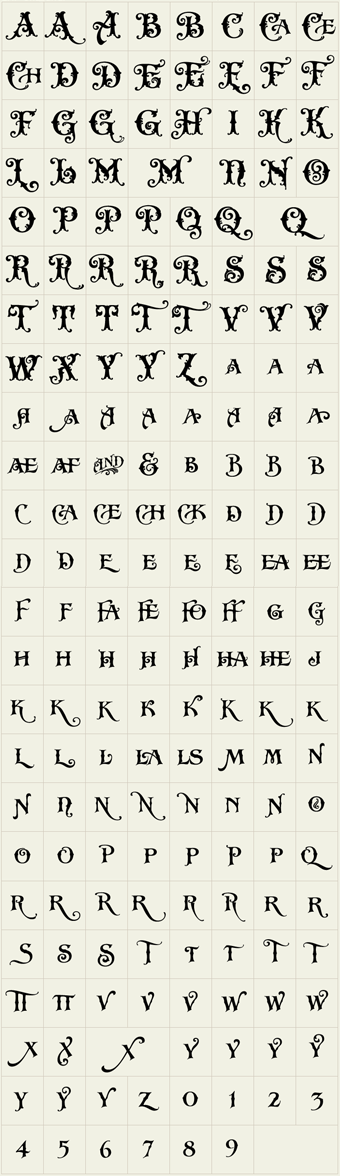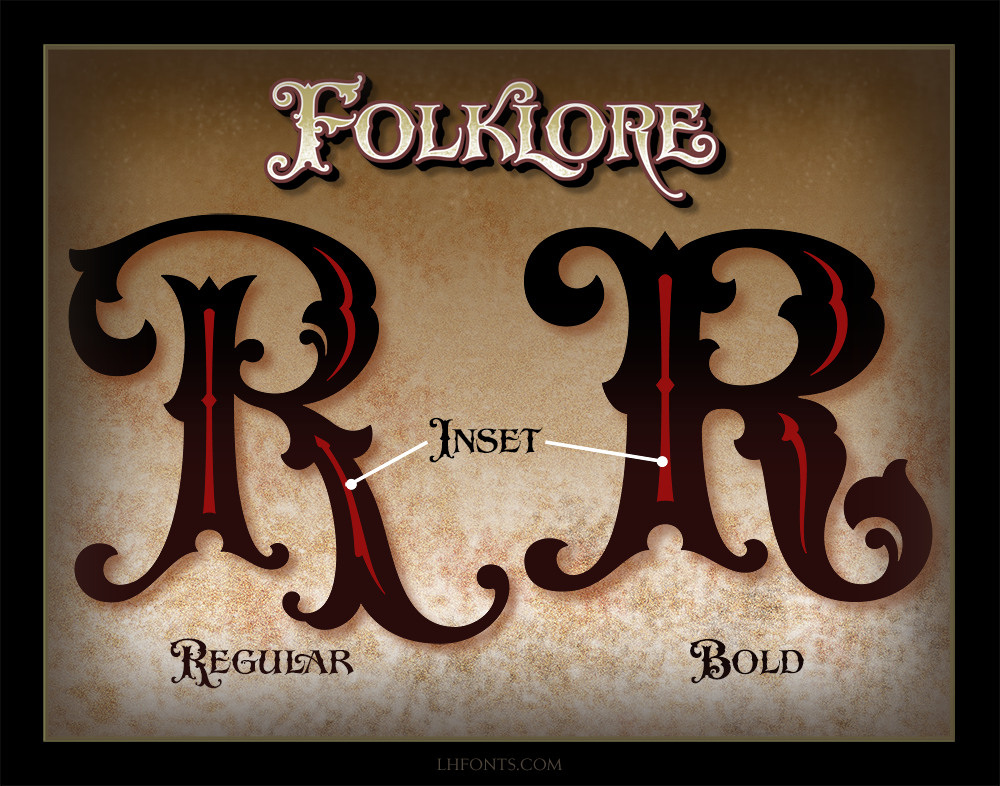
When we were using LHF Folklore in our own designs, we were blown away at how well the letters work with each other. That's not an easy task with a decorative font like this, but veteran sign artist Steve Contreras has pulled it off beautifully. This unique set includes Regular and Bold weights with separate Inset fonts to make it easy to change colors quickly.